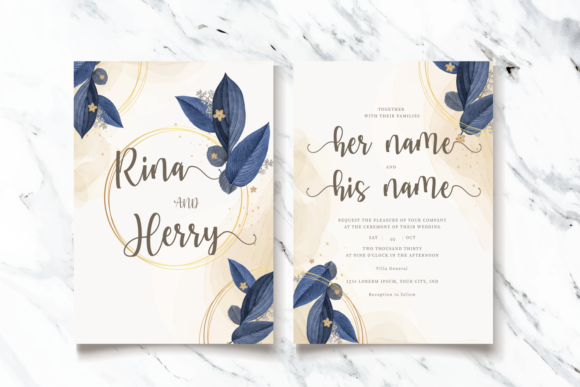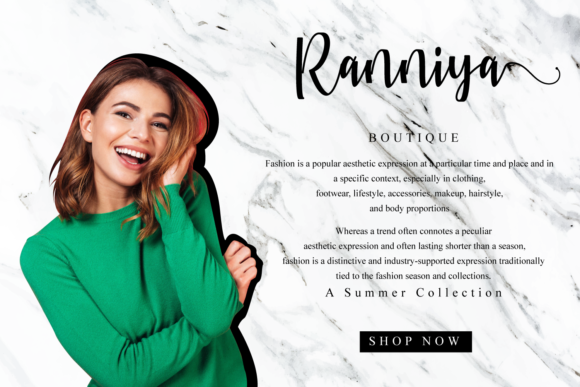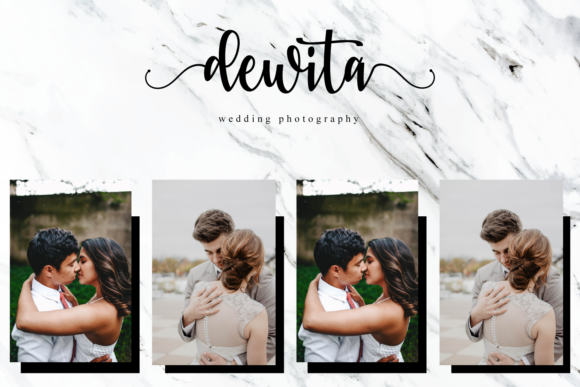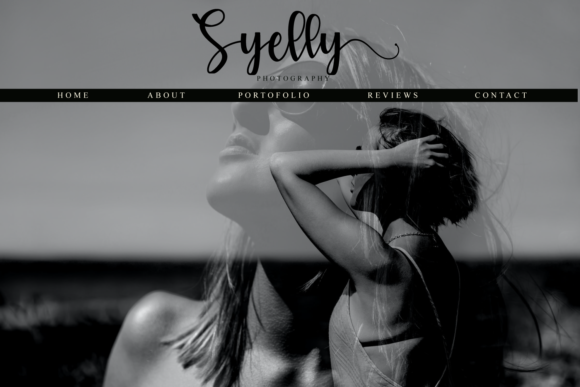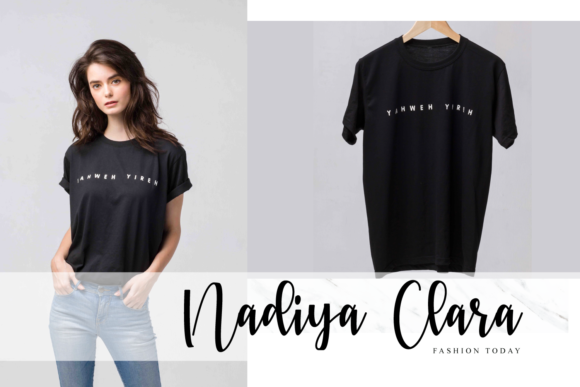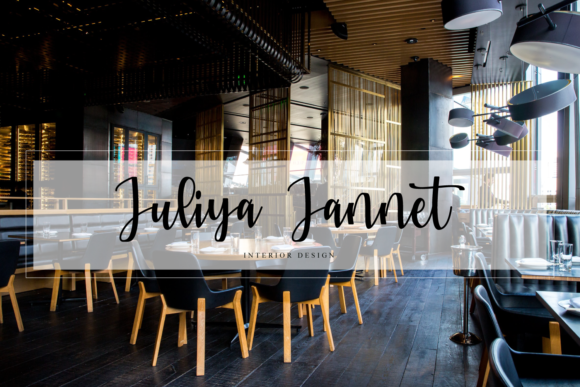
Introduction to Citra Font
Have you ever stared at a blank sheet of paper, waiting for inspiration to strike? For many of us, that’s the moment when creativity takes over and our imagination runs wild. And for designers, it’s the moment when the perfect font can make all the difference. That’s where the Citra Font comes in – a stunning, elegant script that adds a touch of whimsy and sophistication to any design.
Whether you’re working on a high-end wedding invitation or a simple thank you card, the Citra Font is the perfect design resource to elevate your creative project. Its PUA encoded features allow for seamless access to all glyphs and swashes, giving you the freedom to experiment and push the boundaries of your design. And with its smooth lines and gorgeous alternates, this font is sure to leave a lasting impression.
- Unique characteristics: Citra Font features a unique blend of modern and vintage elements, making it a standout design resource for creative projects.
Honest Review: Citra Font
I recently stumbled upon the Citra Font while searching for a high-quality design resource for a creative project. I was immediately drawn to its sleek, modern aesthetic, and I was excited to see how it would perform in my design.
- High-quality design: The Citra Font is crisp and clean, making it perfect for digital design projects.
- Limited font styles: The Citra Font only comes in a few styles, which may not be suitable for designers who need a lot of customization options.
- No extended character set: If you’re working on a project that requires a wide range of languages or characters, you may find the Citra Font lacking.
Overall, I’m impressed with the Citra Font, and I would definitely recommend it to designers who are looking for a high-quality, free design resource for their creative projects. With a few minor limitations, it’s a great addition to any designer’s toolkit.
The Citra Font is a high-quality font that can be used for both small and large-scale designs. Its clear and legible characters make it perfect for body text, while its unique style and flair make it ideal for headings and titles. Whether you’re working on a small project or a large-scale design, the Citra Font is a great choice for adding a touch of creativity and sophistication.